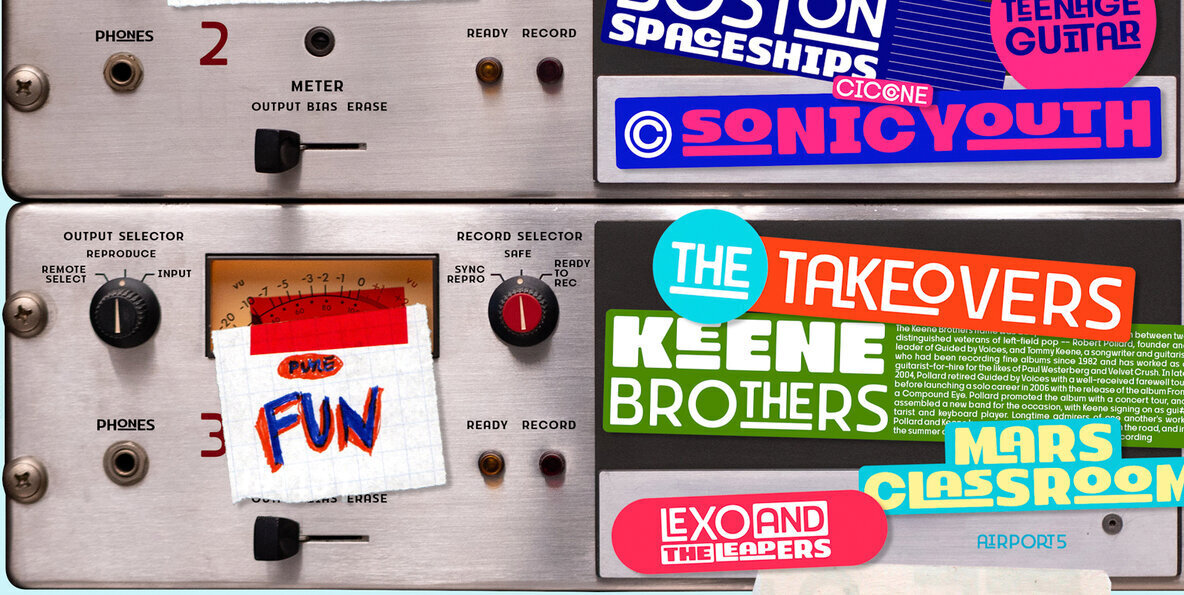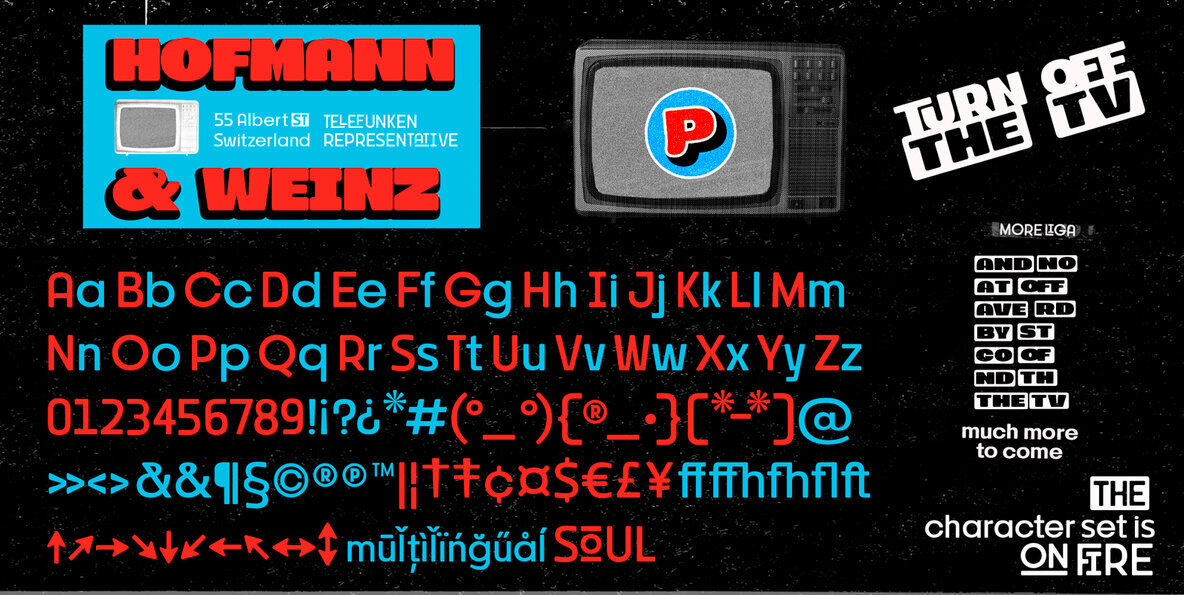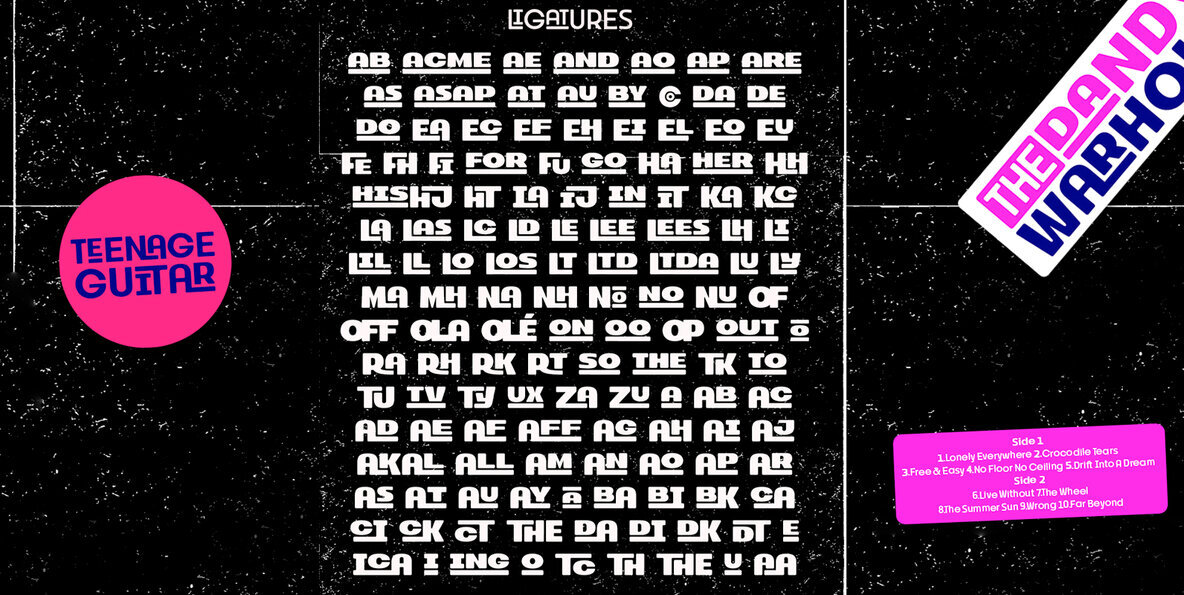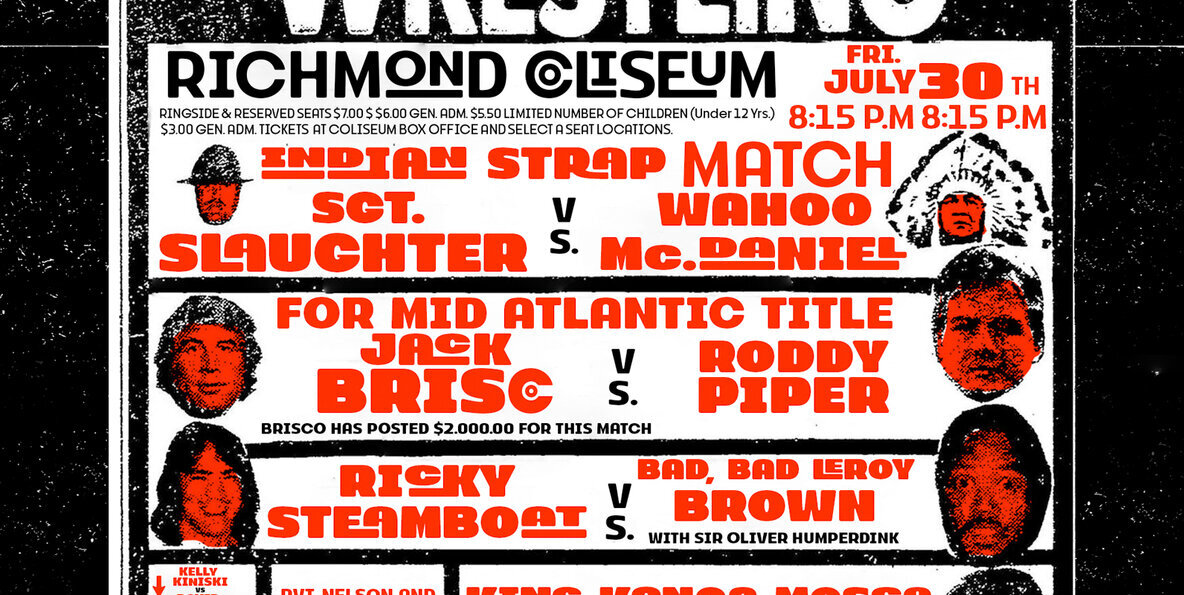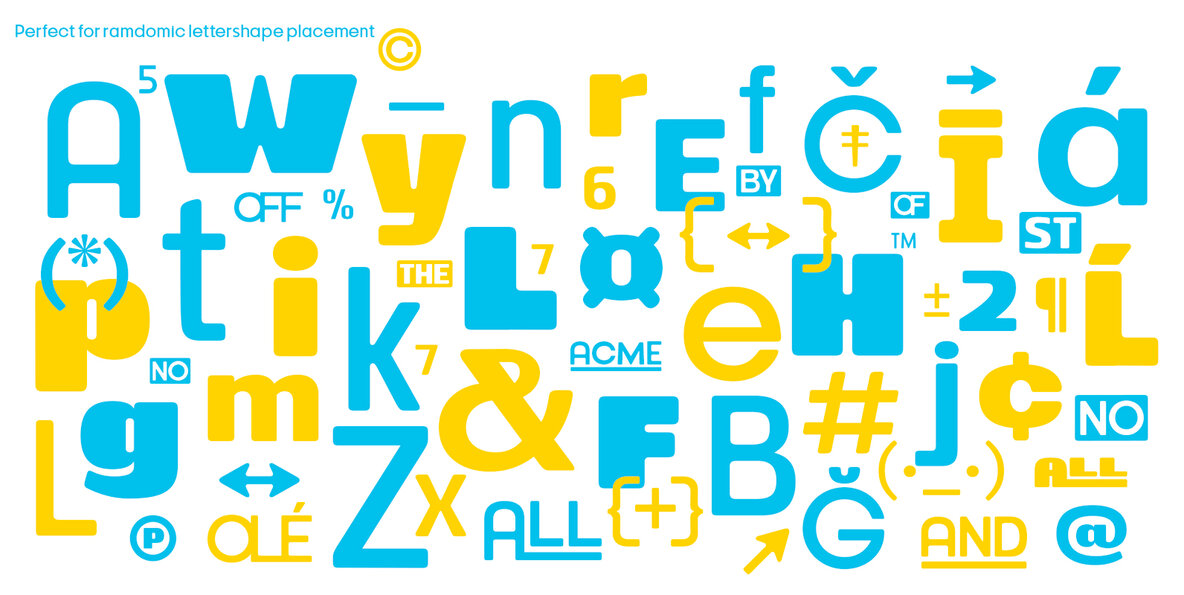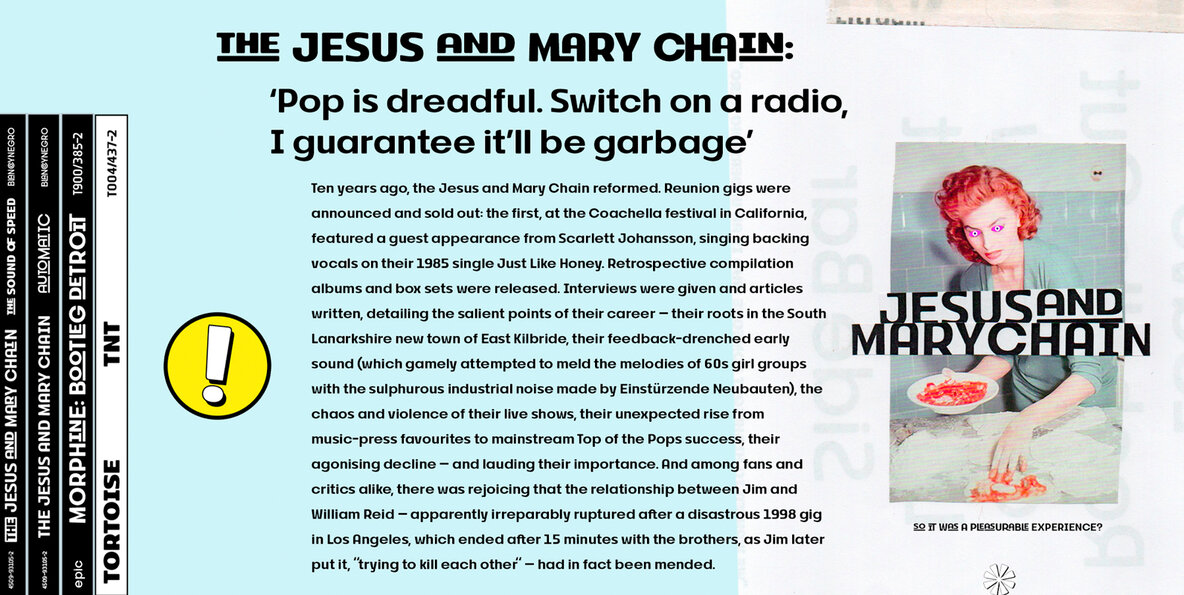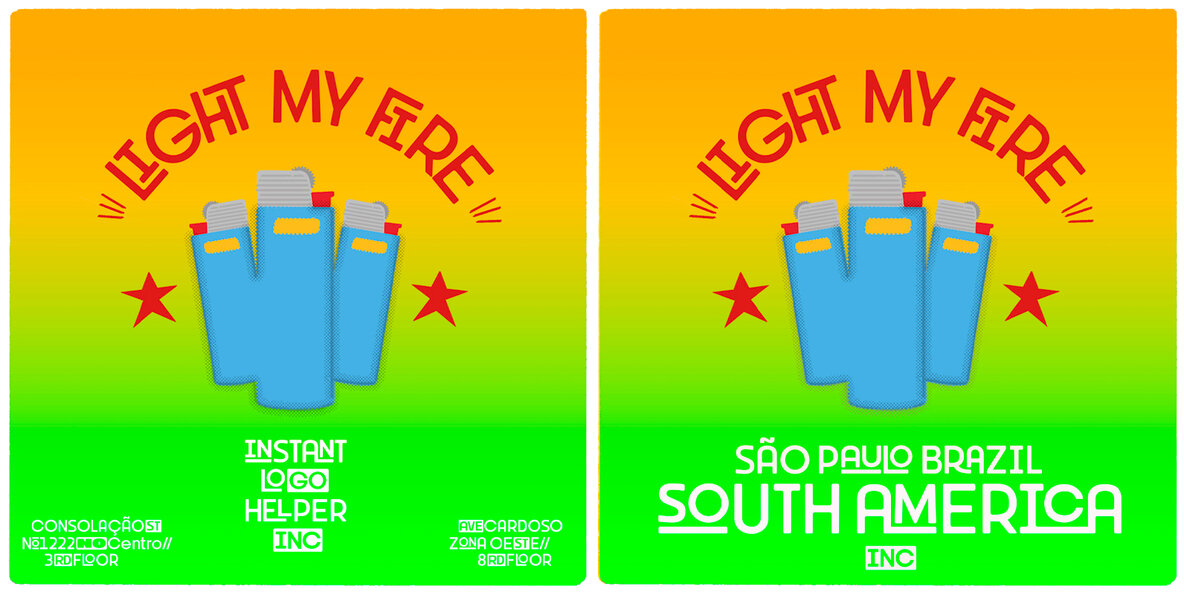
Supertuba Font
Supertuba is a geometric sans vernacular humanist display type family with 6 weights and an extra variable font. There's literally dozens of ligatures in this font so It works very well for flyers, stickers and posters, also you can use it as a text font if you're looking for something bold. Supertuba has multilingual support and useful open type features.
Letter boards that used to be seen in churches, dive bars and butcher shops are the main inspiration for this typeface.
The name Supertuba came from an old supermarket that no longer exists in the city of Indaiatuba , I believe this name is super fun (at least in Portuguese), I was kind of living there during the Covid quarentine when I get started designing this typeface so this is fair enough. Supertuba is the third piece of a particular trilogy of fonts that Stubby and Stubby Rough take part, from the lazy vernacular drawing to an unusual geometry.
Supertuba is a Tipos Pereira font designed by Marcelo Magalhães.